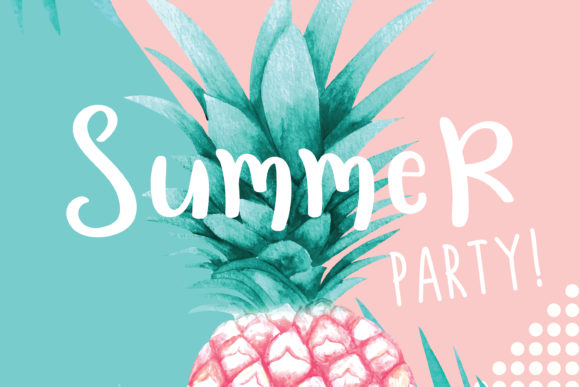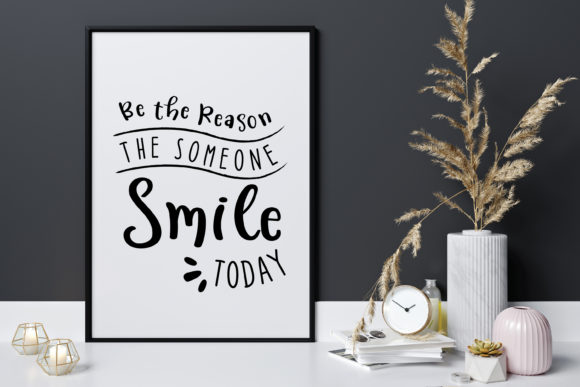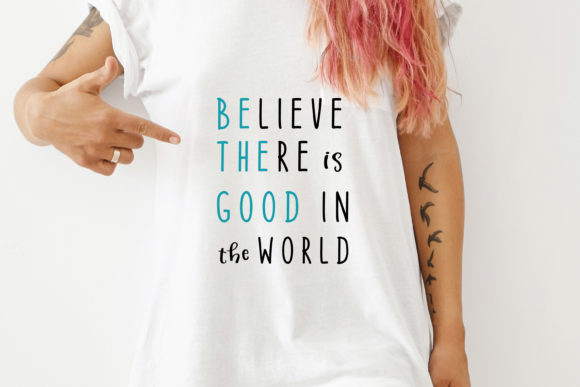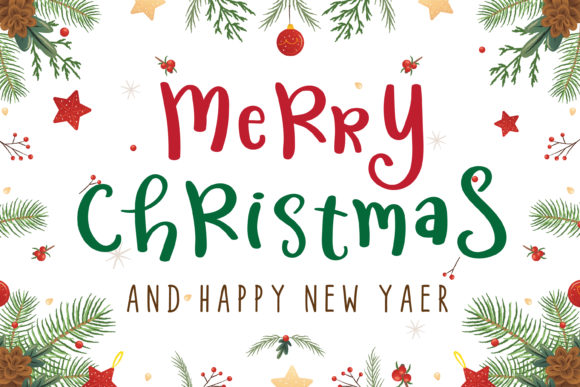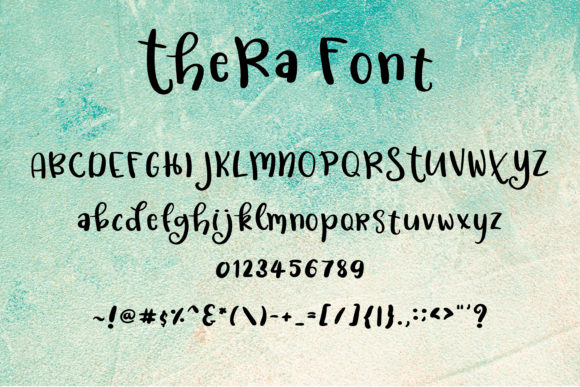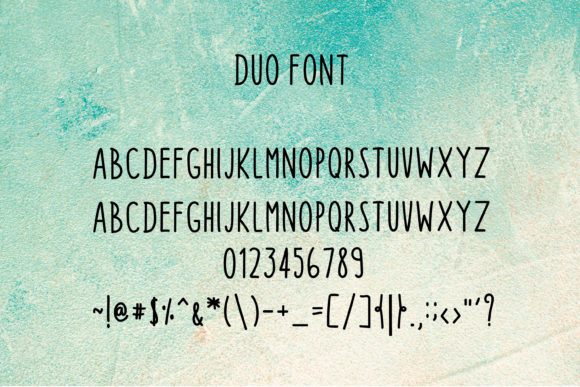
Thera Font
Thera is a font that exudes flow and elegance, making it a perfect choice for a wide range of design projects. Its flowing handwritten style enhances your creations, adding a touch of sophistication that captivates the eye.
With its elegant and timeless essence, Thera brings a sense of grace and charm to your designs. Whether you’re working on social media graphics, quotes, greeting cards, logos, business cards, or any other project, this font elevates each creation with its effortless allure.
Thera’s flowing appearance adds a personal and unique touch to your designs, making them feel refined and special. It’s like a brush of creativity that infuses your creative ideas with a sense of beauty.
Incorporating Thera into your designs allows you to explore a wide range of creative possibilities. Its adaptability serves as a canvas for your imagination, empowering you to create visually stunning and captivating designs.
The beauty of Thera lies in its distinct flow, which effortlessly captures attention and adds an elegant touch to your projects. Let it be the font that brings out the best in your creative ideas, creating designs that resonate with sophistication and allure.
Fall in love with Thera’s flowing and elegant style as it transforms your ideas into spectacular designs that stand the test of time.
In summary, Thera is more than just a font; it’s a flowing and elegant companion that enhances your creative ideas. Embrace its distinct style and notice how it adds a touch of magic to your projects. With Thera, your designs become true expressions of elegance and authenticity, leaving a lasting impact on all who encounter them. Let Thera be the font that brings a sense of grace to your designs, creating a world of timeless beauty and captivating the hearts of your audience.